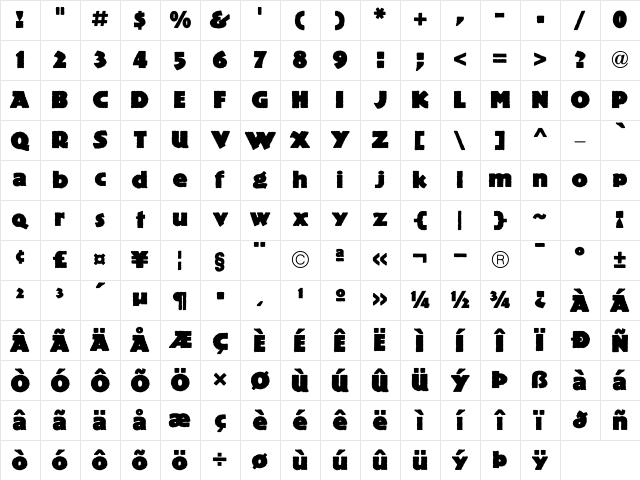
Publicity Gothic ICG Solid takes a clean, functional approach - its unadorned letterforms prioritise legibility and work reliably across screen and print environments.
Font Pairing: Works well alongside a characterful serif or display font that can carry the expressive load while Publicity Gothic ICG Solid handles the functional copy.
Pro Tip: Use Publicity Gothic ICG Solid for UI labels, navigation, and short-form body copy where clean legibility is the priority.